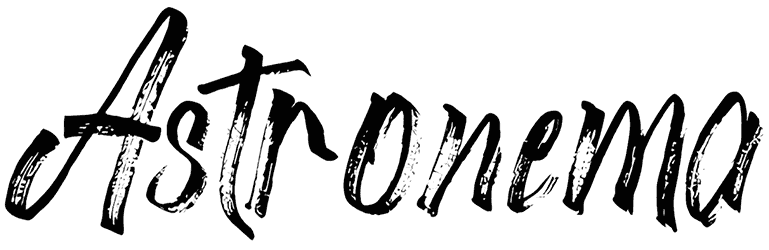
Astronema Font
If you like to design your texts with a modern and urban face, this is an apt choice. Astronema is a brush font with hand art and natural style, available in full characters. You can test it for street posters, movie ads…
If you like to design your texts with a modern and urban face, this is an apt choice. Astronema is a brush font with hand art and natural style, available in full characters. You can test it for street posters, movie ads, magazines, or the like, and let Astronema make them shine.